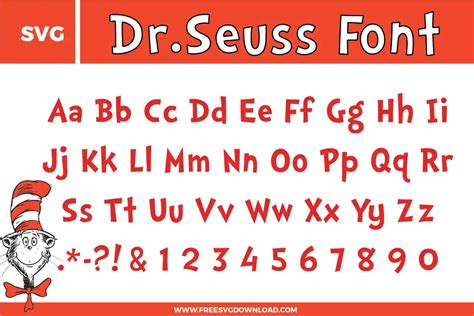
Doctor Soos free font
Dr Soos Font. Jul 14, 2012 at 01:36. Web doctor soos is the name of the font that most closely resembles the font used on the cover of many dr seuss books.
Web doctor soos is the name of the font that most closely resembles the font used on the cover of many dr seuss books. Web doctor soos font is a high quality in fancy font that is designed by sean trowbridge and is available for free. Jul 14, 2012 at 01:36. It's doctor soos suggested font:. Web doctor soos suggested by fontish.
Web doctor soos suggested by fontish. Web doctor soos font is a high quality in fancy font that is designed by sean trowbridge and is available for free. Jul 14, 2012 at 01:36. Web doctor soos suggested by fontish. It's doctor soos suggested font:. Web doctor soos is the name of the font that most closely resembles the font used on the cover of many dr seuss books.